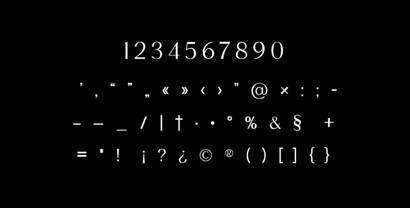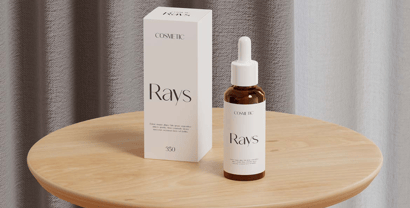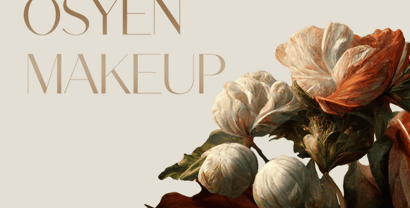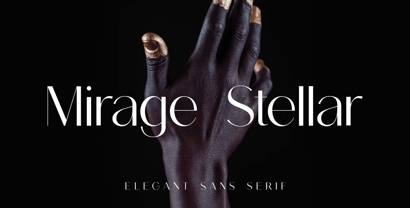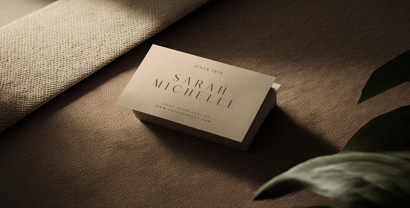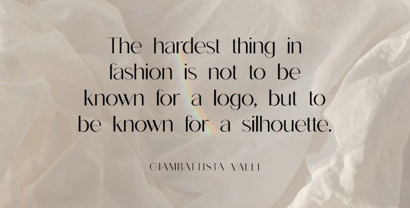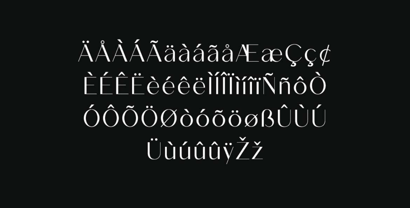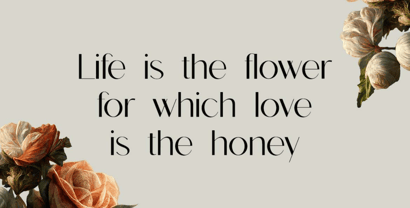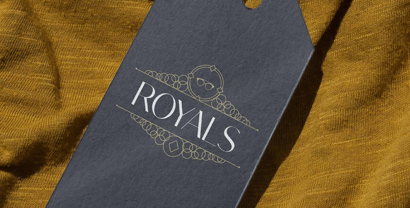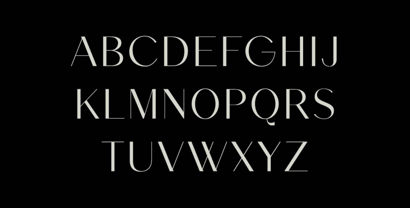
Mirage Stellar
The Mirage Stellar Font Family was designed by Hero and published by UICreative. Mirage Stellar contains 1 styles. More about this family
Introducing our new product the name is Mirage Stellar Elegant Sans Serif Font. Mirage Stellar Elegant Sans Serif Font that feels beautiful classy, elegant, and modern. This font is perfectly suited for a wide variety of projects, such as signature, stationery, logo, wedding, typography quotes, magazine or book covers, website headers, clothing, branding, packaging design, and more. Also, fashion-related branding or editorial design displays both masculine and feminine qualities.
Mirage Stellar is a sophisticated sans serif font that embodies contemporary elegance through its clean lines and balanced proportions. This modern typeface features a harmonious blend of geometric precision and subtle organic touches, creating a refined aesthetic that feels both timeless and thoroughly contemporary. Its carefully crafted letterforms maintain exceptional legibility across various sizes while offering a distinctive character that sets it apart from standard sans serif options, making it perfect for brands seeking a polished yet approachable visual identity.
The font's stellar quality is evident in its meticulous attention to detail, with thoughtfully designed terminals and consistent stroke weights that create a sense of visual harmony and professional refinement. Mirage Stellar strikes the perfect balance between minimalist design principles and subtle personality, allowing it to communicate with clarity and sophistication across diverse applications. Whether used for corporate communications, lifestyle branding, or digital interfaces, this elegant sans serif provides the perfect foundation for designs that require both functionality and aesthetic appeal.
Ideal for modern branding projects, editorial layouts, website design, and premium packaging, Mirage Stellar Elegant Sans Serif Font offers versatile performance while maintaining a distinctive character that helps your designs achieve a contemporary, sophisticated presence in any context